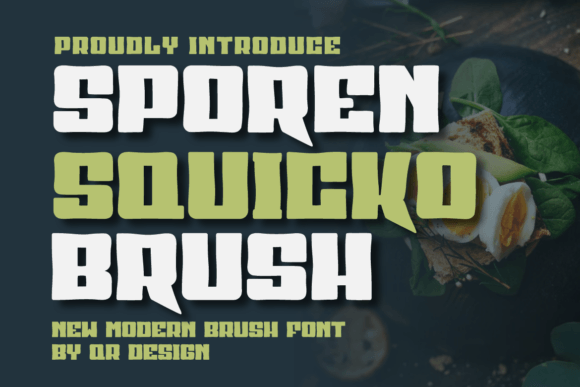
Allow Sporen Squicko Brush Font, the captivating creation of qrdesignstd, to ignite your imagination and elevate your designs to new heights. Immerse yourself in the world of comics, where vibrant brushstrokes dance across the page, bringing your characters and storylines to life with unparalleled authenticity.
Sporen Squicko Brush Font is more than just a font; it's a gateway to a realm of limitless creativity. Whether you're crafting a dynamic logo that demands attention or designing a t-shirt that exudes a touch of whimsy, this font will effortlessly transform your vision into a tangible masterpiece.
Its bold and expressive nature empowers you to leave a lasting impression on your audience. Each stroke is meticulously crafted to evoke a sense of wonder and excitement, drawing readers into your world of imagination. Let Sporen Squicko Brush Font be your artistic accomplice, guiding you on a journey where creativity knows no bounds.
Imagine your designs adorned with the playful charm of Sporen Squicko Brush Font. It's a font that breathes life into your projects, capturing the essence of adventure and the allure of far-off lands. Let your imagination run wild as you create designs that spark joy and ignite the imagination.
With Sporen Squicko Brush Font, you're not just downloading a font; you're embracing a world of endless possibilities. It's a font that empowers you to break free from the ordinary and create designs that resonate with your audience.
So, embark on this extraordinary adventure today and let Sporen Squicko Brush Font be your trusted companion. Together, you'll conquer the realm of comics and beyond, leaving an indelible mark on the world of design.